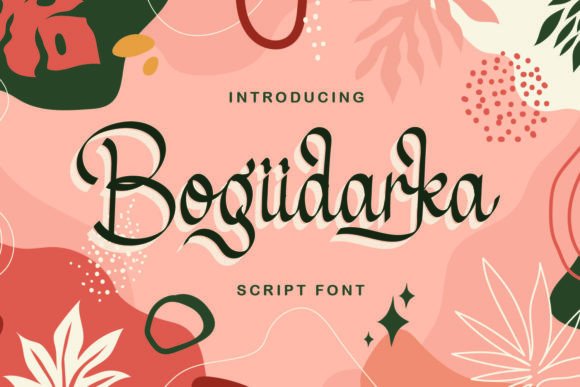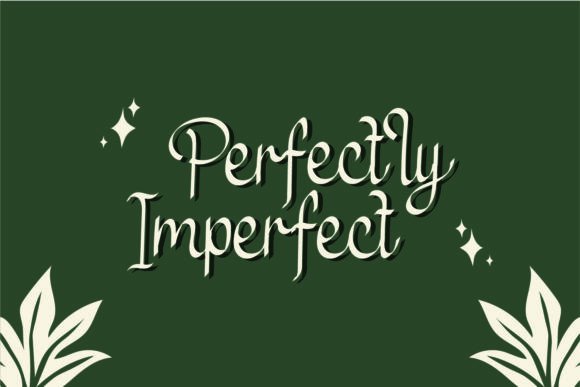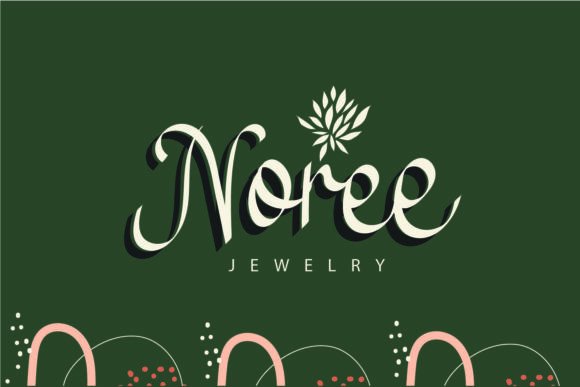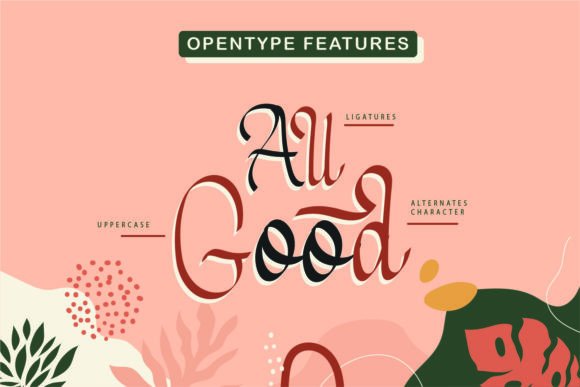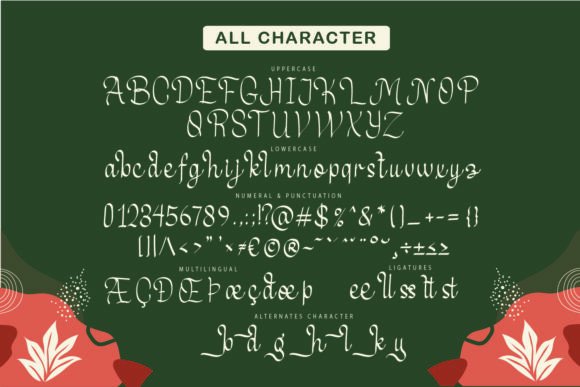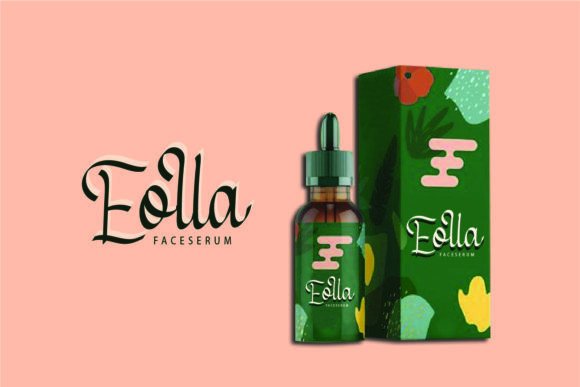
Bogiidarka Font
A Stylish Calligraphy Script Font for Creative Projects
Bogiidarka Font is a contemporary script font that showcases a stylish calligraphy style. It is an excellent choice for a wide range of design projects, including invitations, greeting cards, branding materials, business cards, quotes, posters, and more. With its elegant and fluid letterforms, Bogiidarka adds a touch of beauty and sophistication to any design.
Perfect for Invitations and Special Occasions
The Bogiidarka Font is ideal for wedding invitations and other special occasion designs. Whether you’re designing save-the-dates, invitations, or thank you cards, this font adds a romantic and luxurious feel to your stationery. Its flowing strokes and elegant design set the tone for a memorable event, making it perfect for weddings, anniversaries, and other celebrations.
Great for Greeting Cards and Personalized Stationery
For greeting cards and personalized stationery, the Bogiidarka Font offers a charming and refined design. Whether you’re crafting a birthday card, holiday greeting, or thank you note, this font adds a personal touch to your text. Its calligraphy-inspired design makes your words feel more intimate and meaningful, perfect for conveying heartfelt emotions.
Ideal for Branding and Business Cards
For branding materials and business cards, the Bogiidarka Font exudes professionalism and creativity. Whether you’re designing a logo, corporate materials, or marketing assets, this font brings a unique and memorable touch to your brand identity. Its stylish calligraphy ensures that your business stands out with elegance and authenticity.
Perfect for Quotes and Posters
For quotes and posters, the Bogiidarka Font provides an artistic, eye-catching touch. Whether you’re creating motivational quotes, inspirational posters, or advertisements, this font adds a unique and beautiful flair to your designs. Its fluid letterforms and elegant strokes capture attention, making it perfect for designs that require visual impact.
Versatile for Formal and Informal Designs
The Bogiidarka Font is versatile, making it suitable for both formal and informal designs. Whether you’re working on sophisticated wedding stationery or casual greeting cards, this font adds a touch of refinement and charm to your designs. Its ability to adapt to both classic and modern projects makes it a valuable addition to your creative toolkit.
Elegant, Legible, and Versatile
Despite its intricate calligraphy design, the Bogiidarka Font remains legible and versatile. Its well-balanced strokes and smooth curves ensure that your text is easy to read, even at smaller sizes or for longer passages. Whether you’re working on headlines, captions, or body text, this font strikes the perfect balance between style and clarity, making it perfect for various creative applications.
Add Elegance and Charm to Your Designs with Bogiidarka Font
If you’re looking for a stylish calligraphy script font to elevate your designs, the Bogiidarka Font is the perfect choice. Whether you’re creating wedding invitations, logos, quotes, or posters, this font adds sophistication, beauty, and refinement to your work. Let the Bogiidarka Font transform your creative projects and leave a lasting impression on your audience.